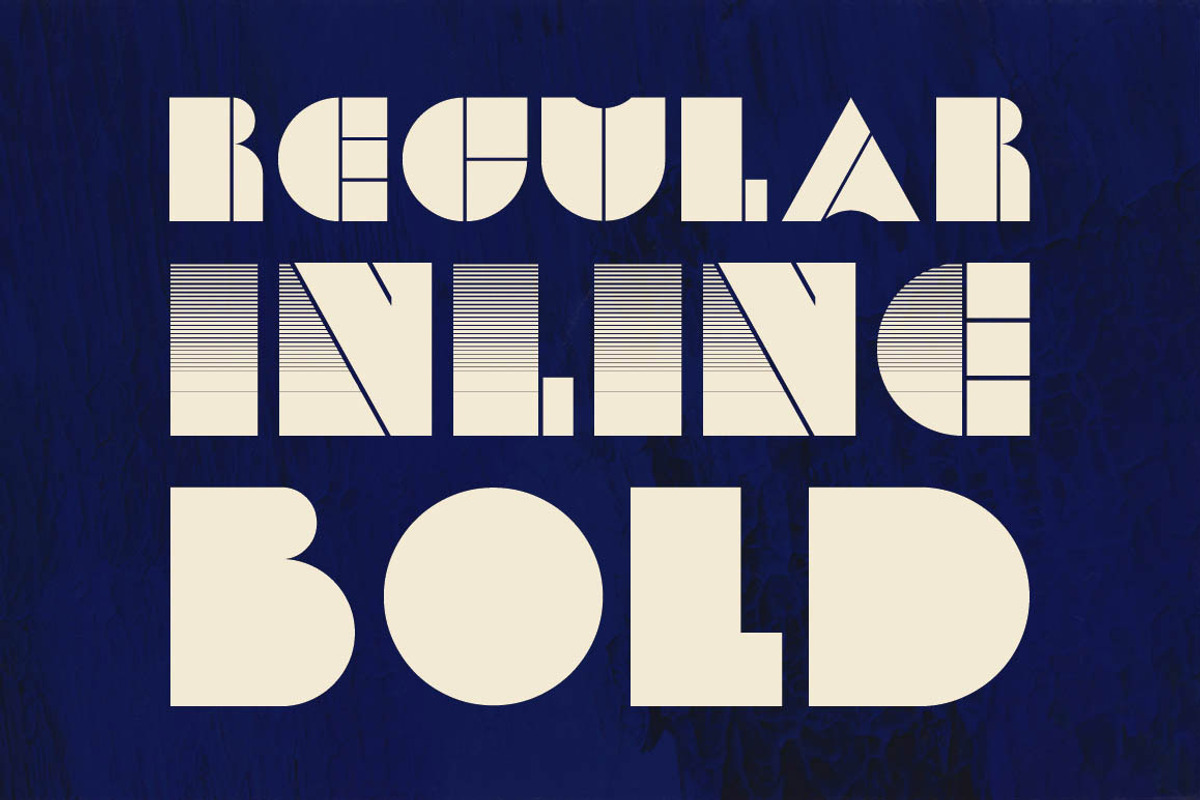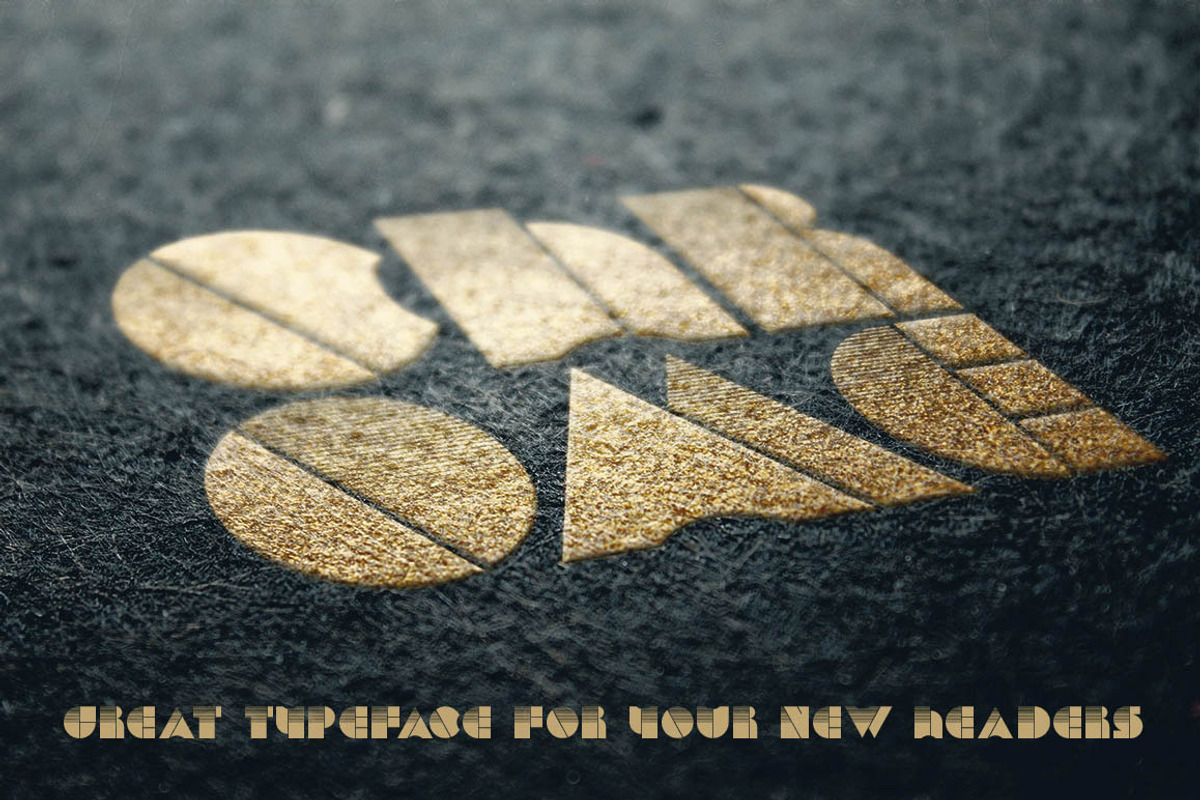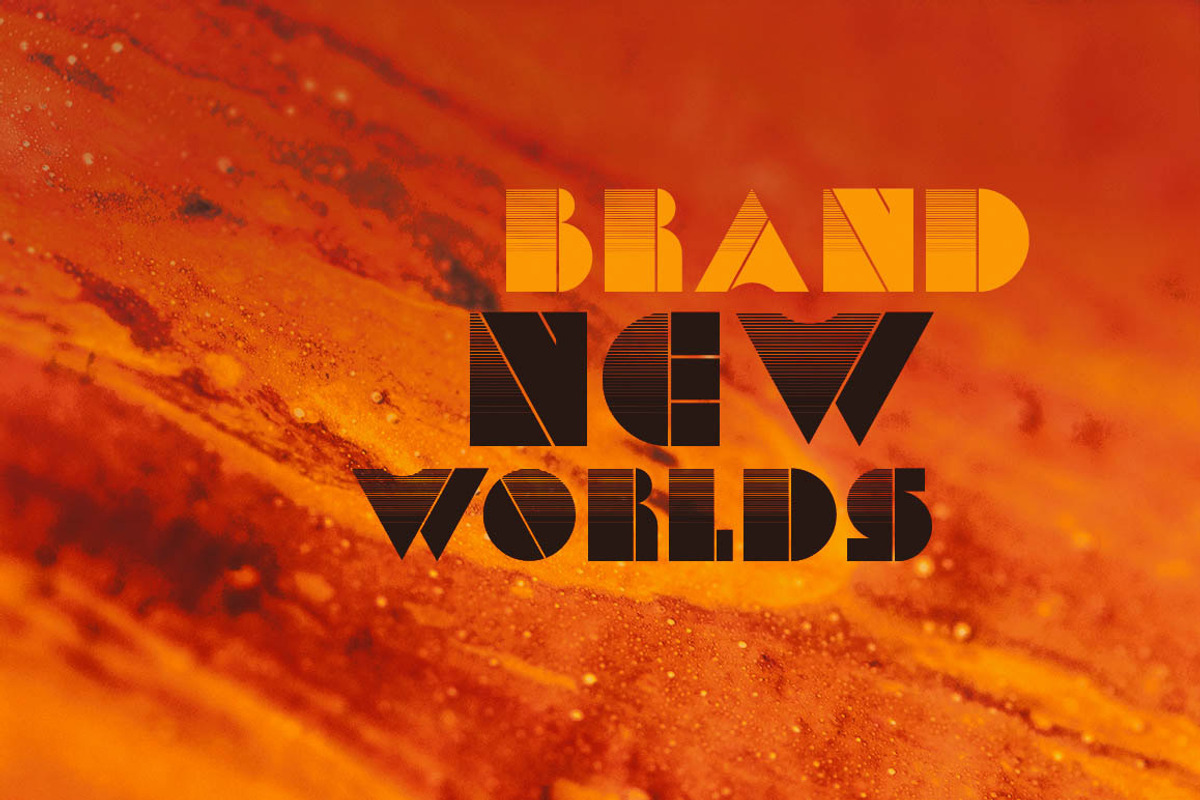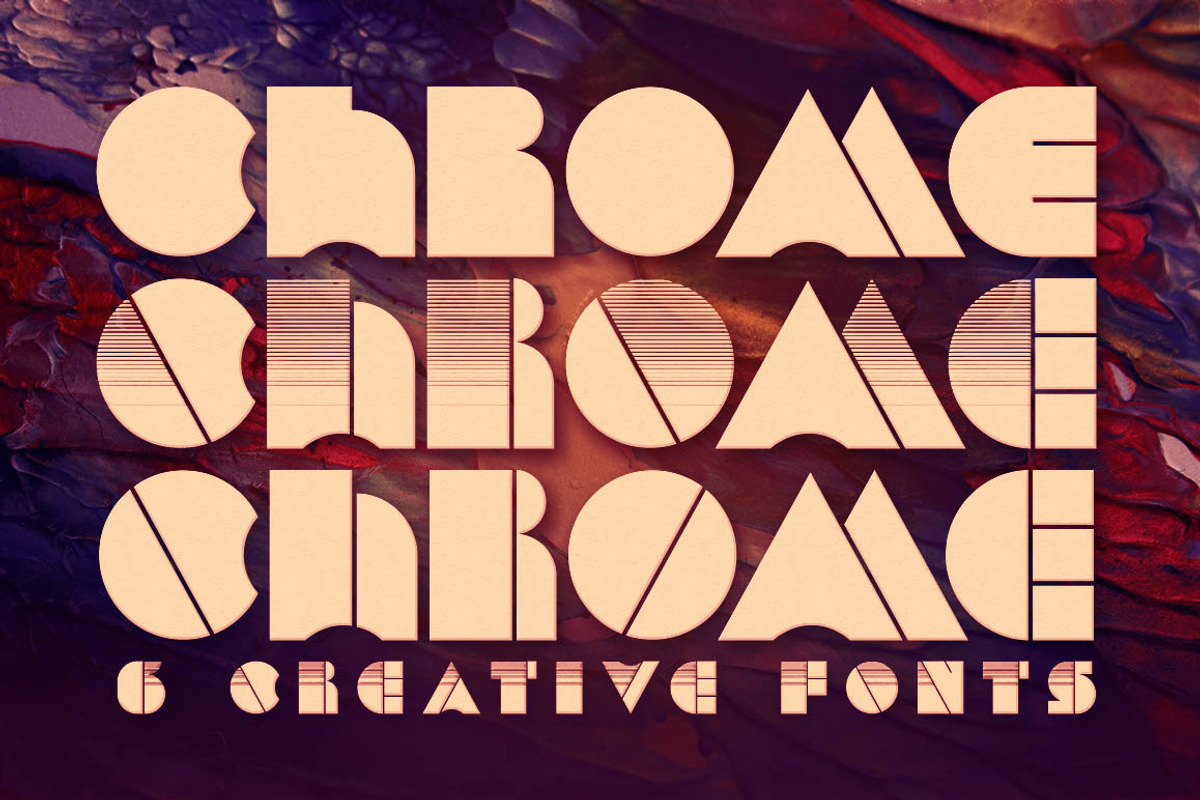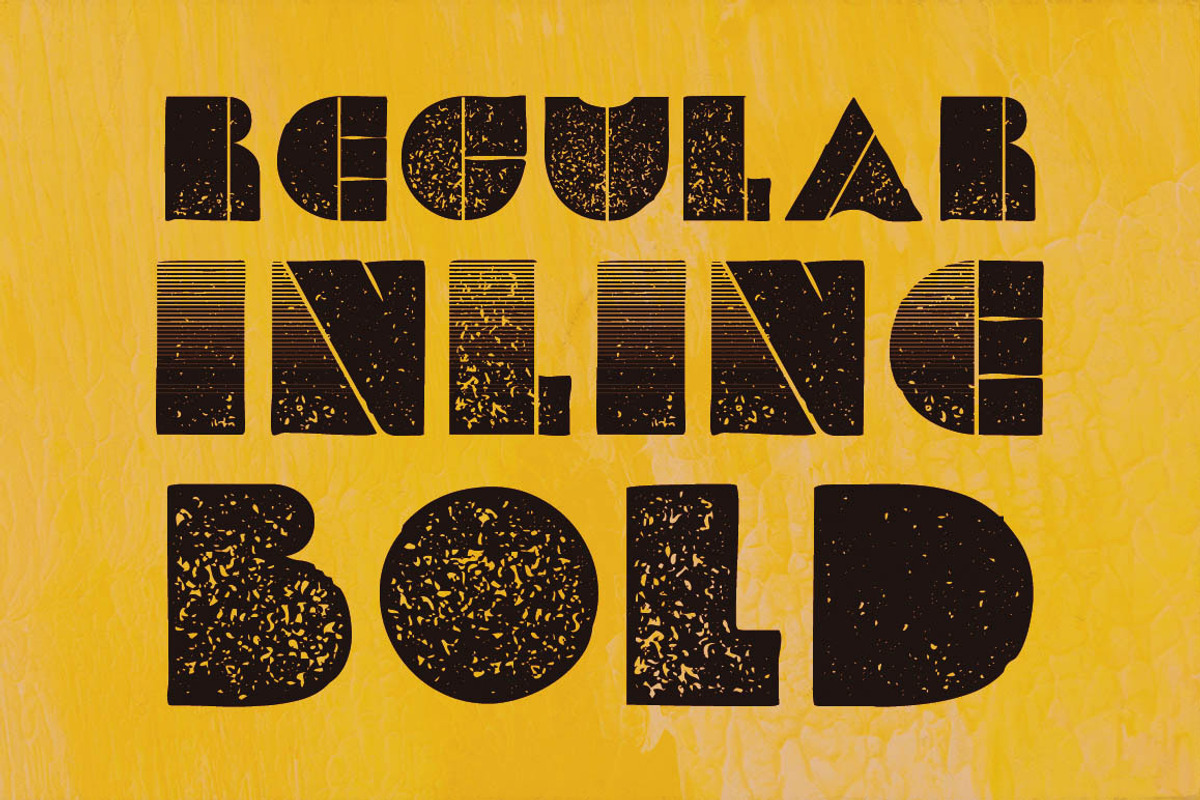
Chrome - Display Font
Chrome - Display Font by MIIM is a font selected for branding, posters, packaging, typography.
Why Chrome - Display Font is worth a look
Chrome - Display Font by MIIM fits naturally into Branding, posters, packaging, typography.